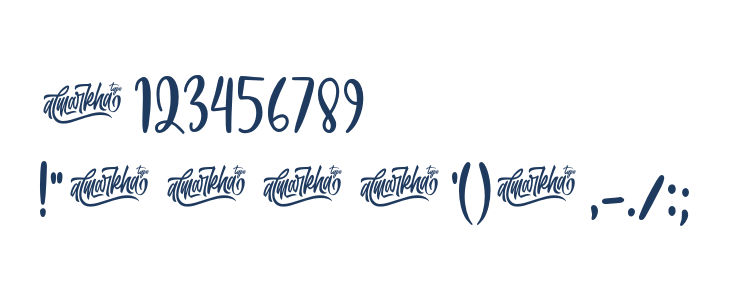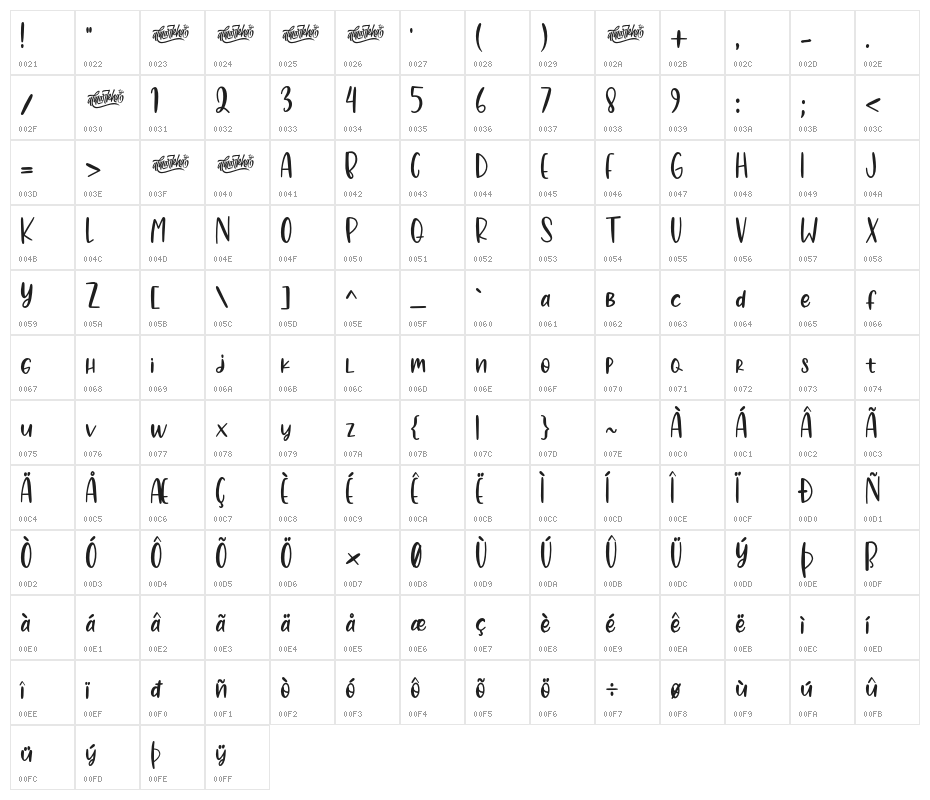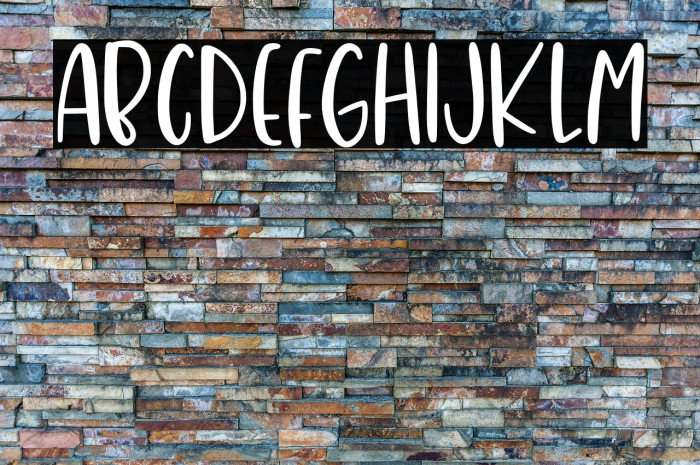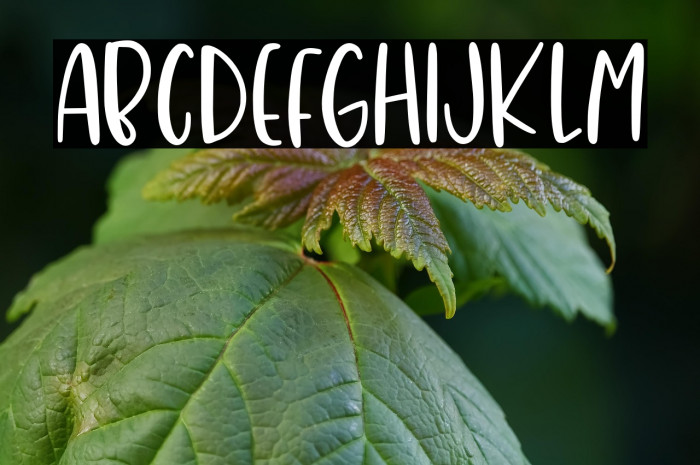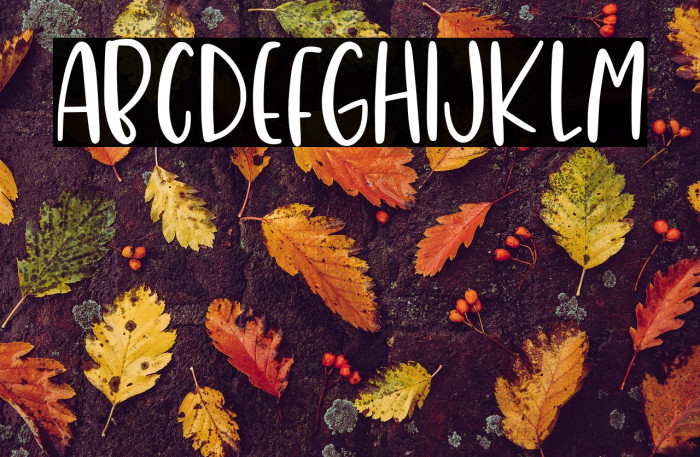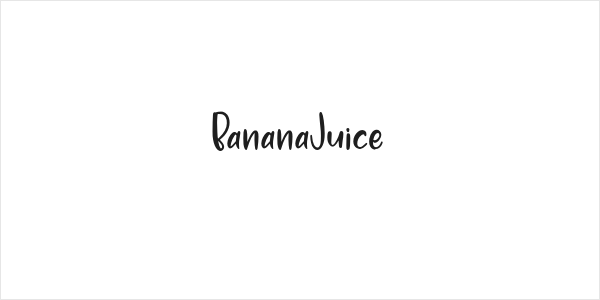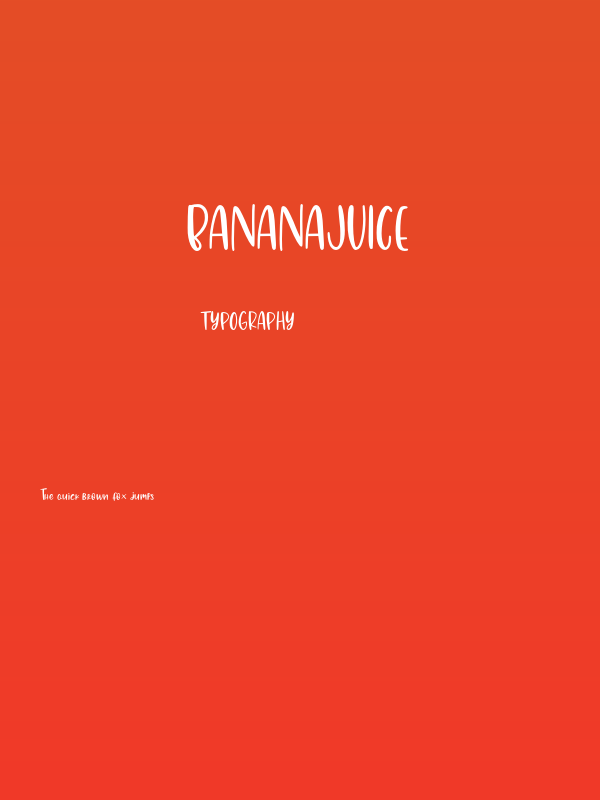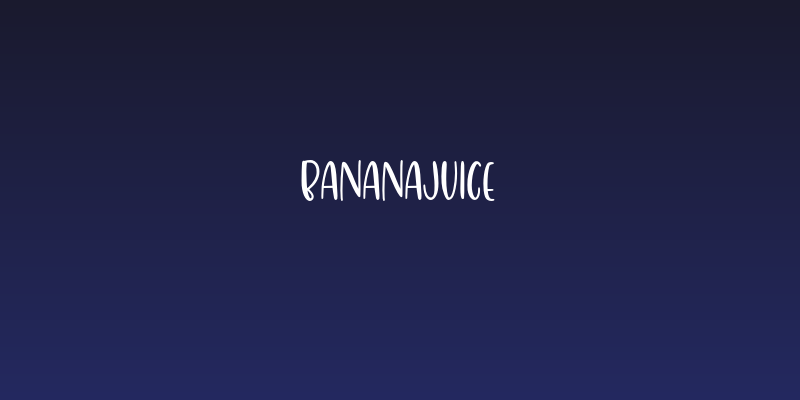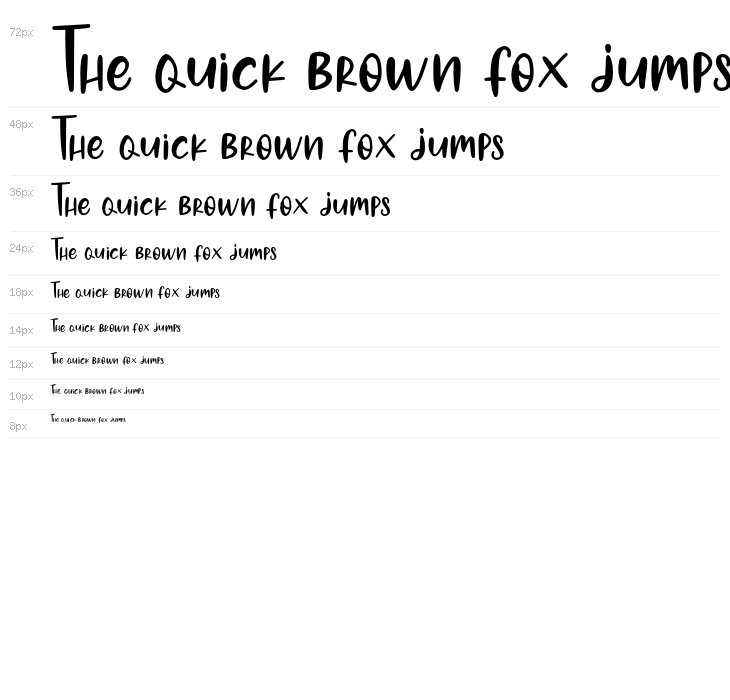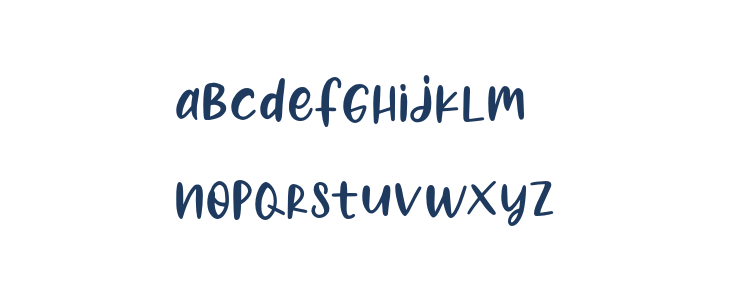
BananaJuice Font
BananaJuice Description
This font features a playful and energetic style, characterized by its handwritten appearance. The letters are slightly irregular, adding a personal and informal touch. The uppercase letters are bold and slightly elongated, while the lowercase letters maintain a consistent flow with rounded edges. The numbers are similarly styled, with a whimsical flair that complements the overall design. Special characters are included, maintaining the same lively and dynamic aesthetic. This font is perfect for projects that require a fun and approachable feel.
| Use Case | Headlines, Logos, Social media graphics |
| Proposed Projects | Ideal for greeting cards, children's books, playful branding, and social media graphics. |